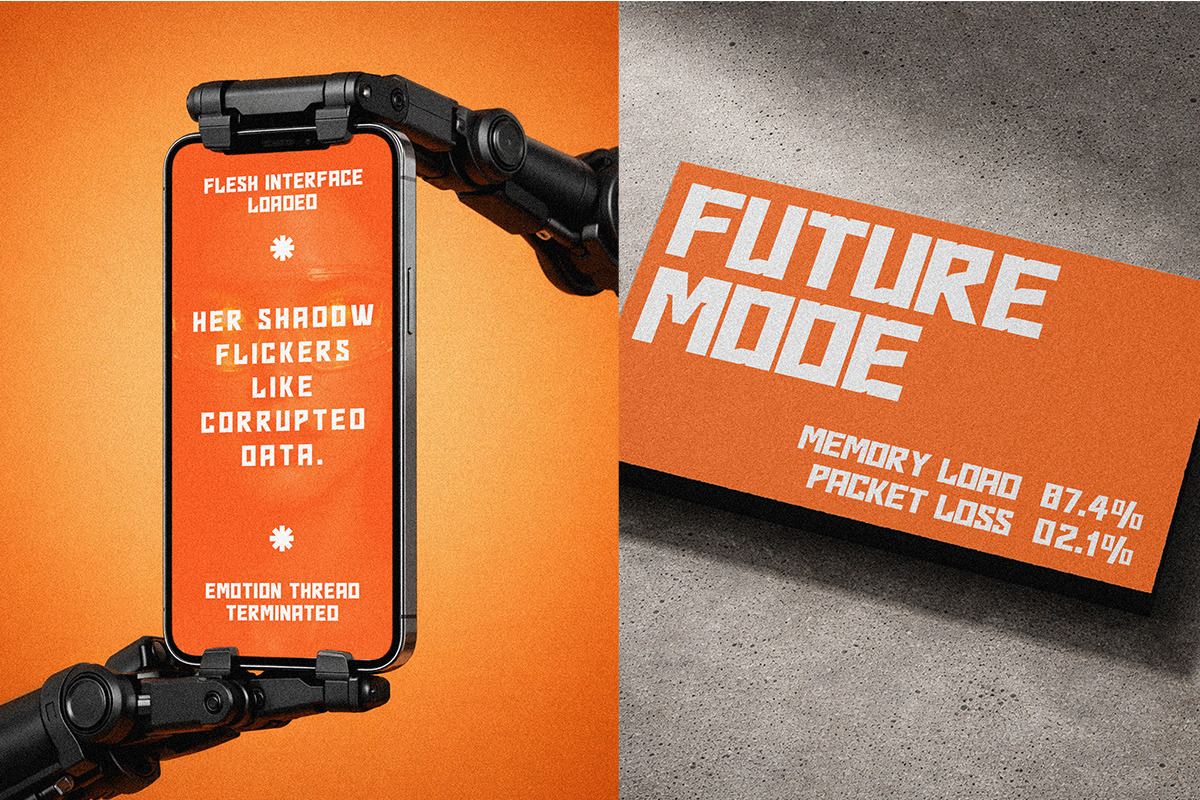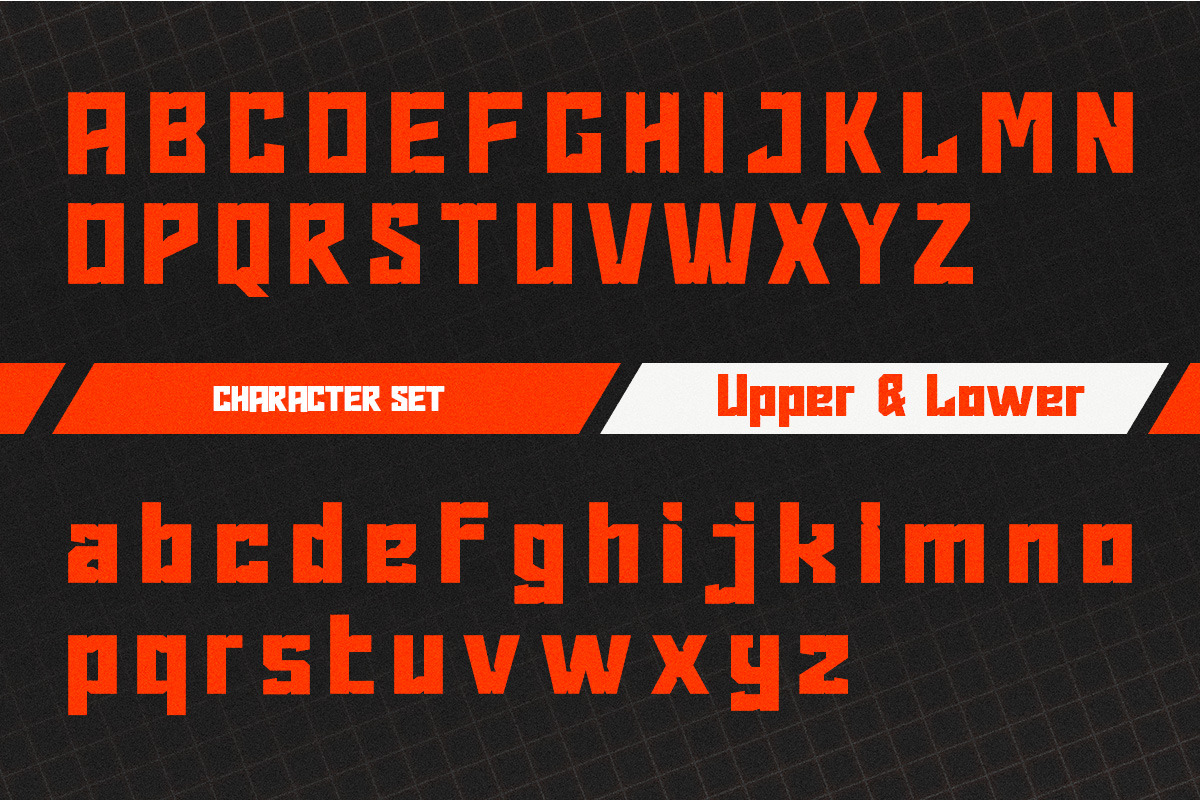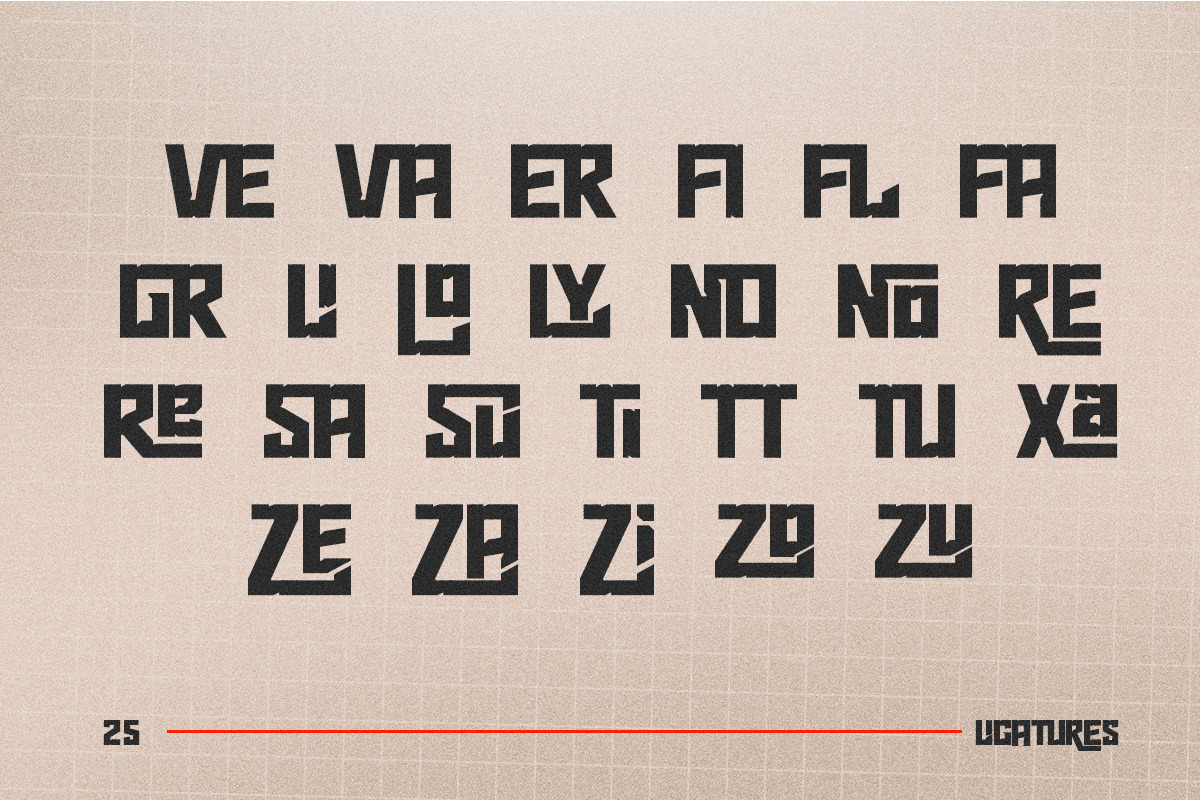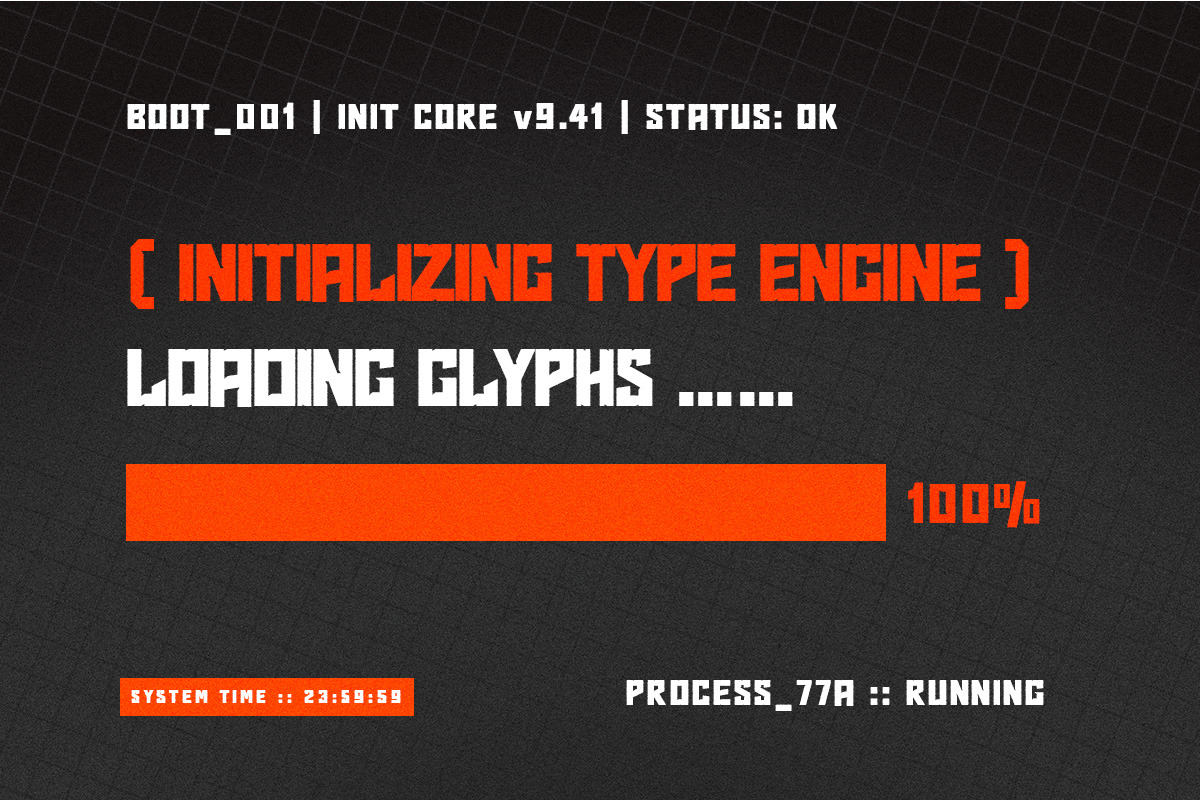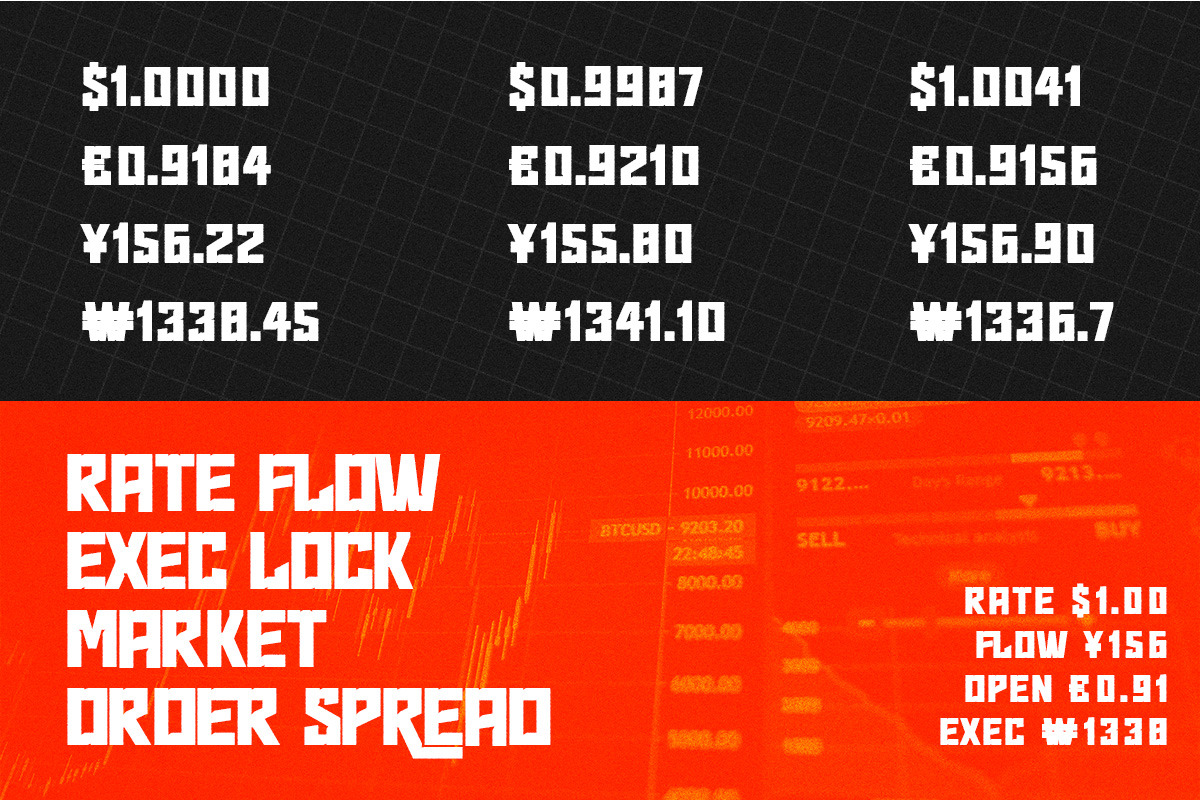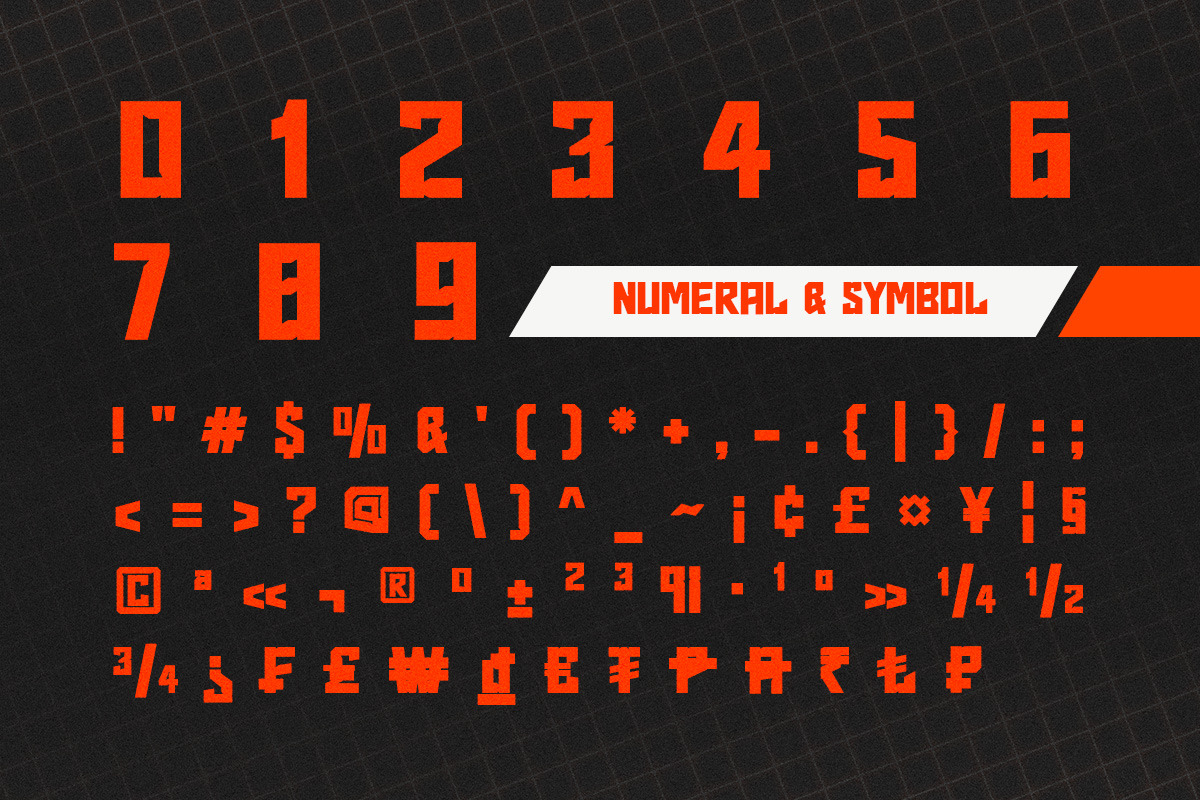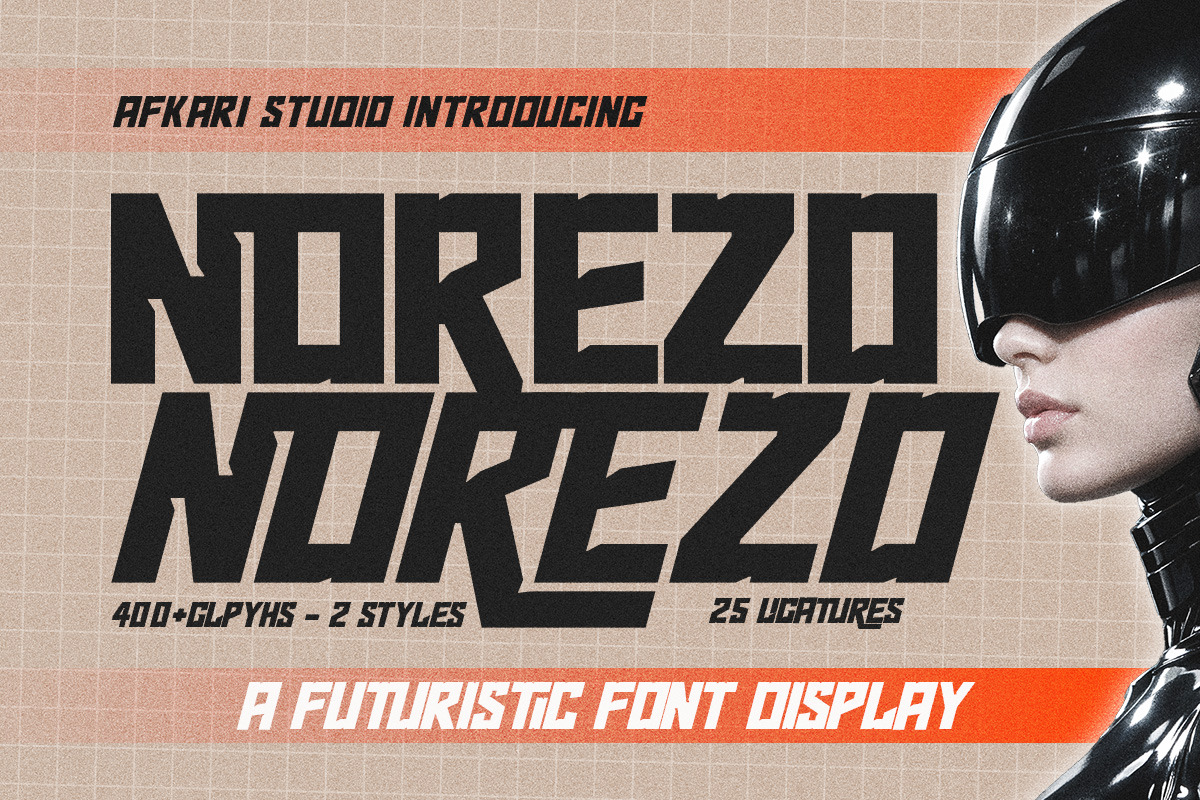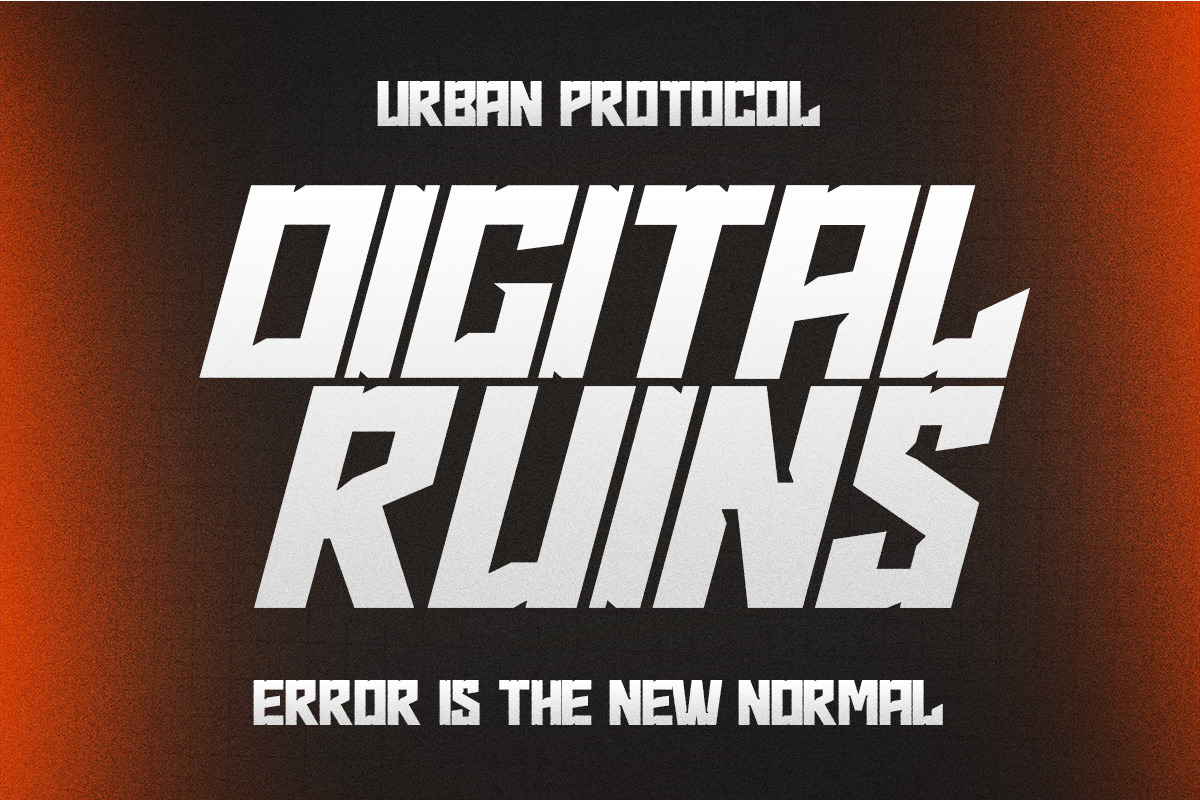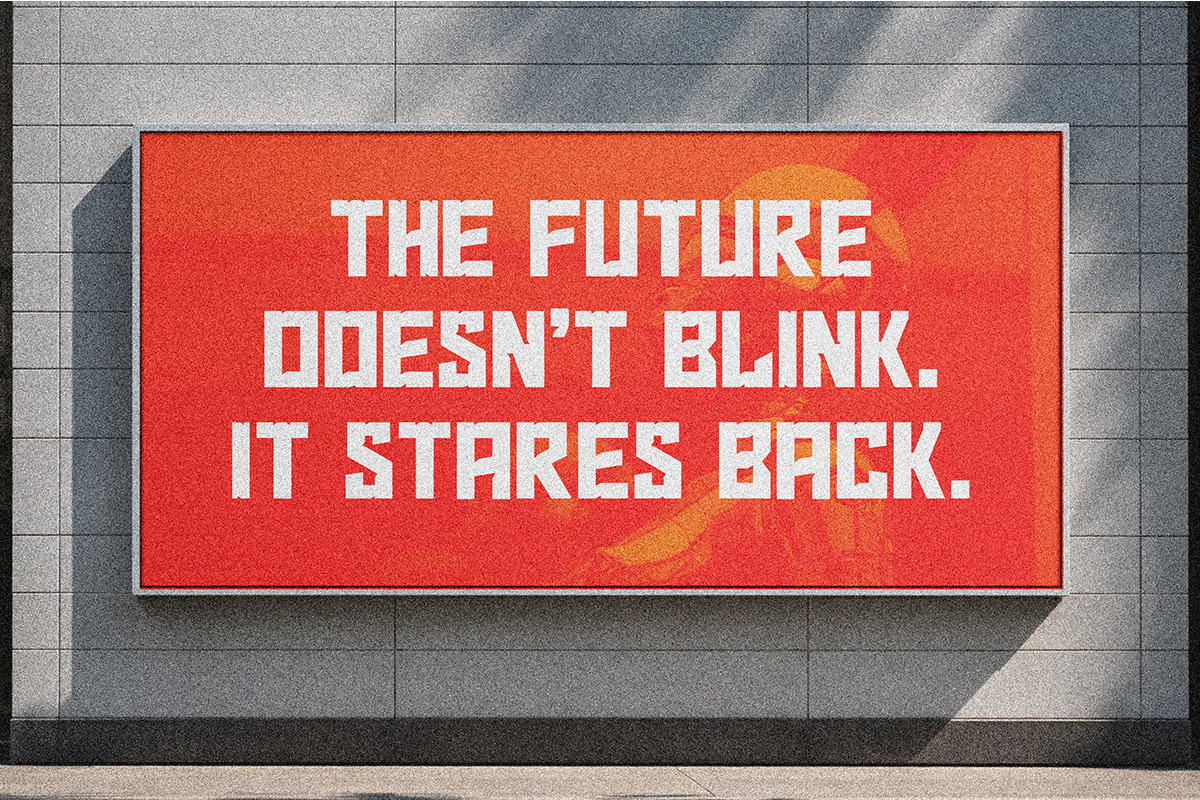
Norezo - A Futuristic Display Font
Norezo is a futuristic display font designed to deliver a sleek, modern, and high-tech visual impact. Featuring sharp geometric shapes and clean letter structures, this font captures the spirit of innovation and forward-thinking design, making it ideal for contemporary creative projects.
Norezo comes in Regular and Slant styles, allowing designers to create both stable and dynamic compositions. The Regular style provides a clean and solid appearance, while the Slant style adds motion and energy—perfect for designs that aim to convey speed and technology.
Built for modern creatives, Norezo works perfectly across digital and print applications where bold and futuristic typography is needed.
Highlighted Features:
- Complete set of uppercase and lowercase letters, numerals, and punctuation marks
- Unique alternates and ligatures for enhanced character variation
- Multilingual support including characters such as ä, ö, ü, Ä, Ö, Ü, ß, ¿, and ¡
Bring a bold and modern technological edge to your designs with Norezo – Futuristic Display Font, crafted for projects that look toward the future.